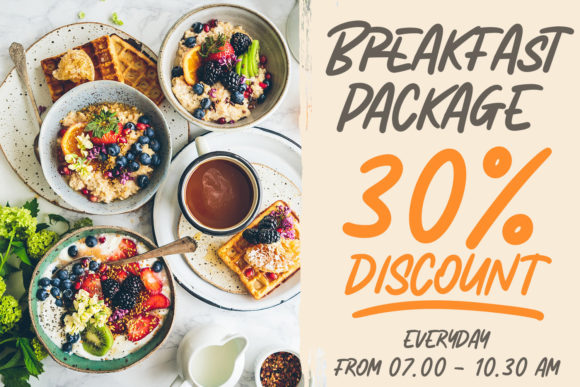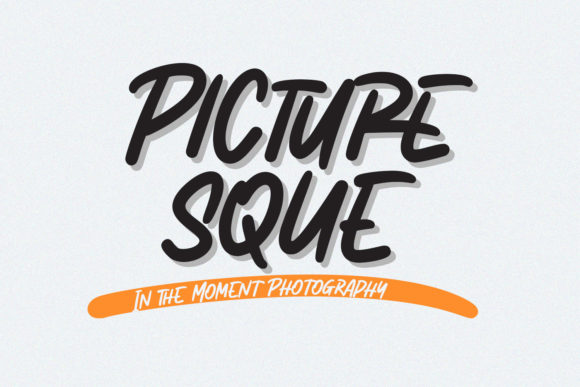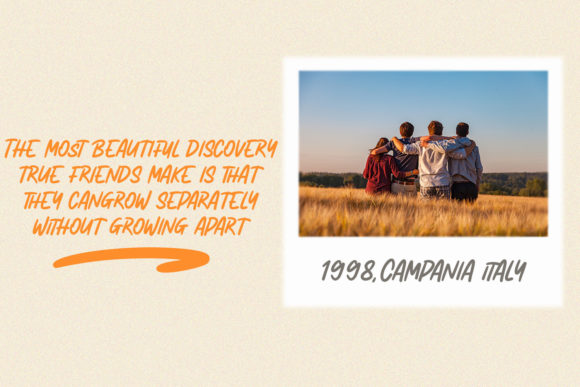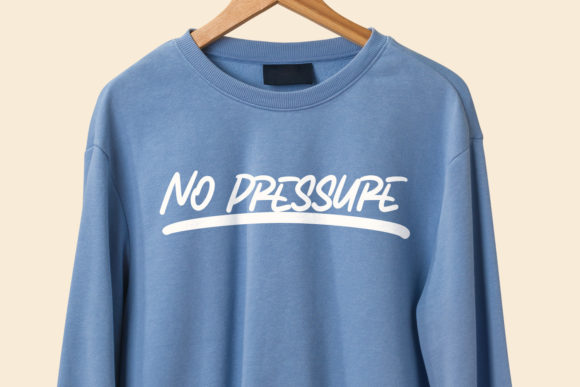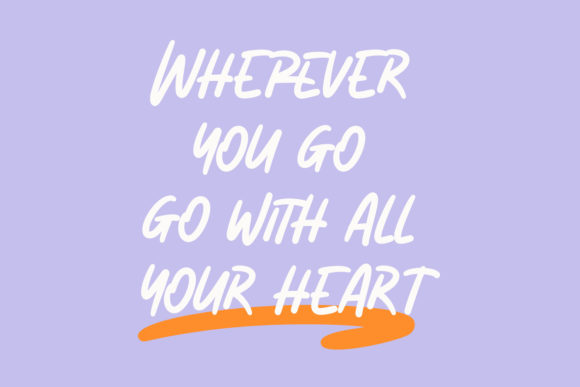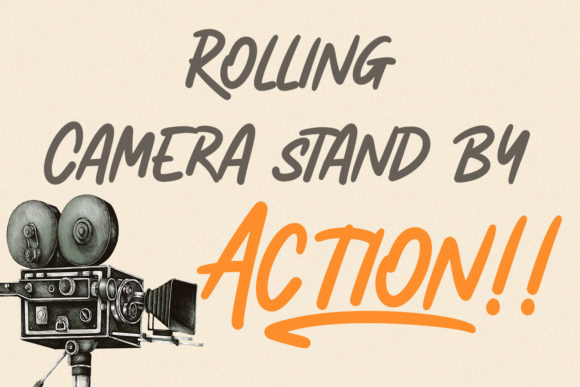
Introducing Arghfunks Font: Elevate Your Designs with a Fancy Display Font
Are you looking for a font that can add a touch of elegance and creativity to your designs? Look no further than Arghfunks Font! This fancy display font is perfect for designers and crafters who want to make a statement with their work. With its condensed bold strokes, fun characters, and ligatures and alternates, Arghfunks Font is sure to take your designs to the next level.
Key Features of Arghfunks Font
So, what makes Arghfunks Font so special? Here are just a few of its key features:
- Condensed bold strokes: Arghfunks Font features bold, condensed strokes that are perfect for creating eye-catching headlines and titles.
- Fun characters: The font includes a range of fun and playful characters that can add a touch of personality to your designs.
- Ligatures and alternates: Arghfunks Font also includes ligatures and alternates, which give you extra creative freedom to experiment with different looks and styles.
Uses for Arghfunks Font
So, what can you use Arghfunks Font for? The possibilities are endless! Here are just a few ideas to get you started:
- Logo design: Arghfunks Font is perfect for creating eye-catching logos that will help your brand stand out.
- Social media: Use Arghfunks Font to create engaging social media posts that will grab the attention of your followers.
- Movie titles: Create stunning movie titles with Arghfunks Font that will set the tone for your film.
- Book titles: Use Arghfunks Font to create eye-catching book titles that will make your book stand out on the shelves.
- Short text: Arghfunks Font is perfect for short texts, such as captions, headings, and taglines.
- Long text: And, with its clear and readable design, Arghfunks Font is also suitable for longer texts, such as articles and blog posts.
Pairing Arghfunks Font with Other Fonts
One of the best things about Arghfunks Font is its versatility. It can be paired with a range of other fonts to create a unique and interesting look. Here are a few pairing suggestions:
- Script fonts: Pair Arghfunks Font with a script font for a elegant and sophisticated look.
- Signature fonts: Use Arghfunks Font as a secondary font, paired with a signature or script font, to add a touch of personality to your designs.
Tips for Using Arghfunks Font
Here are a few tips for getting the most out of Arghfunks Font:
- Experiment with different sizes: Arghfunks Font looks great in a range of sizes, from large headlines to smaller body text.
- Play with ligatures and alternates: Don’t be afraid to experiment with the ligatures and alternates in Arghfunks Font to create a unique look.
- Use it sparingly: Because Arghfunks Font is so eye-catching, it’s best to use it sparingly to avoid overwhelming your design.
In conclusion, Arghfunks Font is a fantastic addition to any designer’s toolkit. With its condensed bold strokes, fun characters, and ligatures and alternates, it’s perfect for creating eye-catching designs that will grab attention. Whether you’re designing a logo, creating social media posts, or working on a book or movie title, Arghfunks Font is sure to impress. So why not give it a try and see what amazing designs you can create?
Make stunning work with Arghfunks Font and take your designs to the next level!